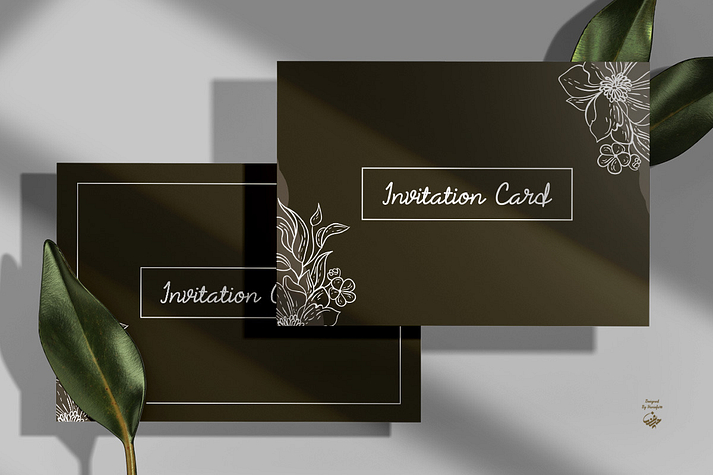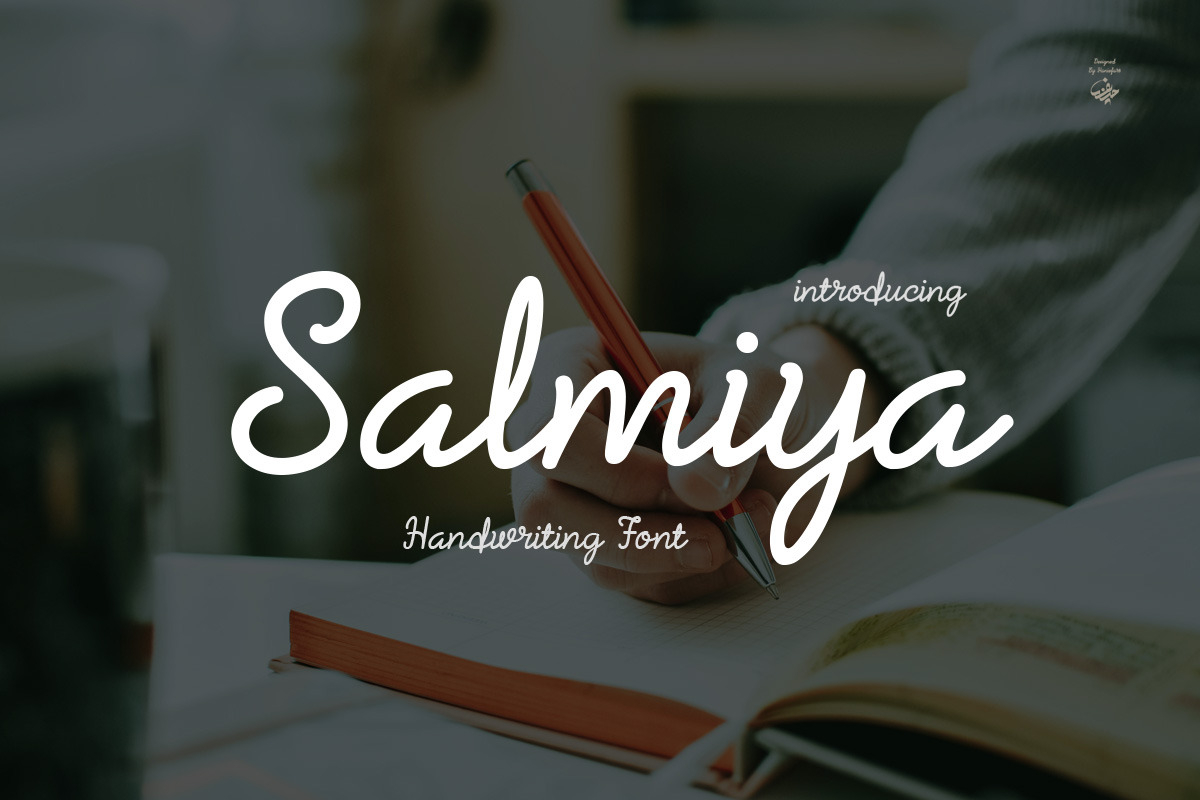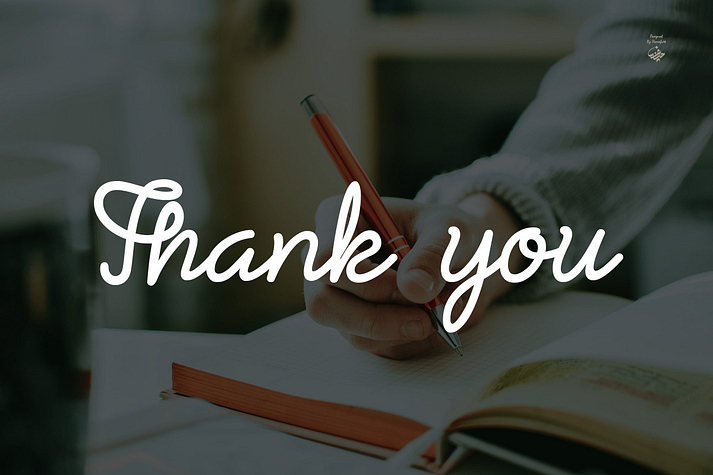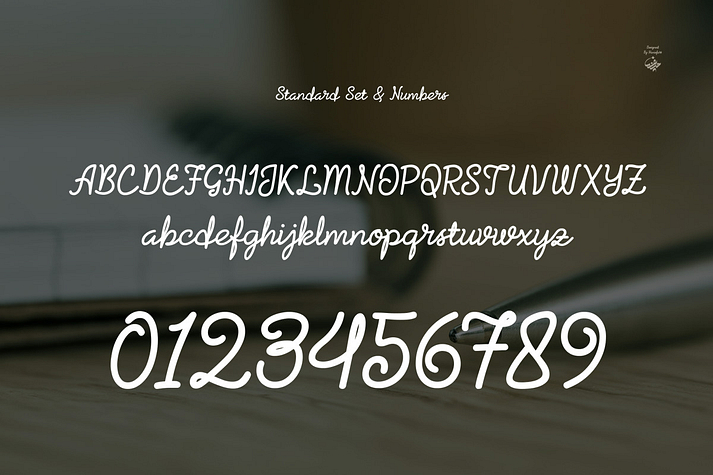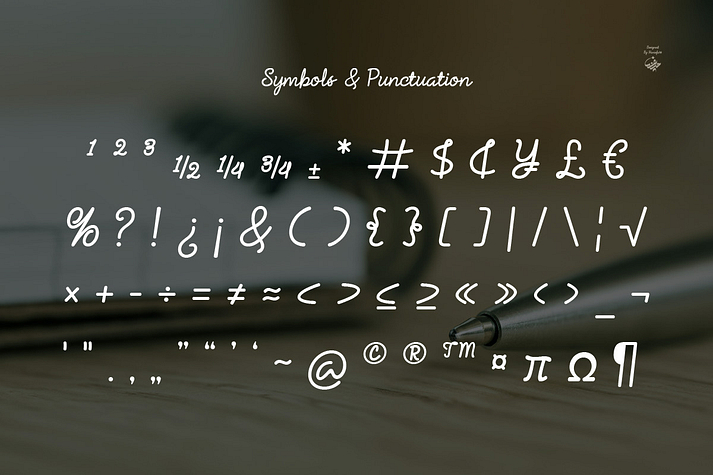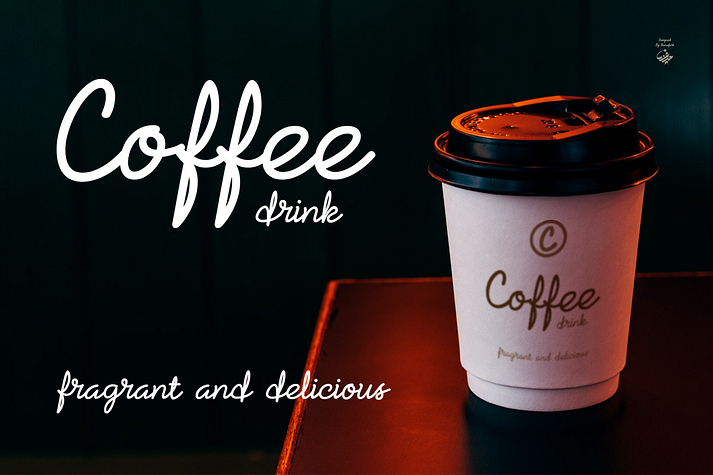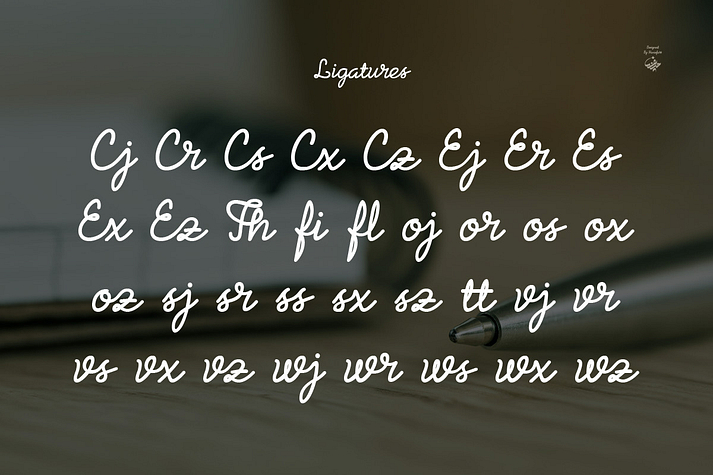
Salmiya
Salmiya is a font family published by Haniefart.
Salmiya is a smooth and elegant handwritten font with a beautiful and unique slightly swirling structure that gives it a modern feel. And there are also uppercase letters, lowercase letters, numbers, punctuation, and ligatures. Adds a beautiful touch to your project design. The Salmiya font can be used for various purposes such as greeting cards, wedding invitations, branding, apparel, business cards, book covers, posters, and many others.